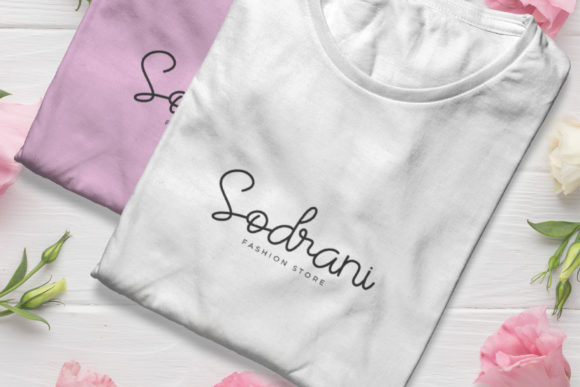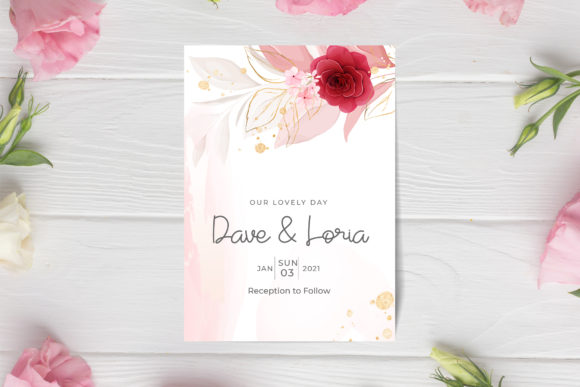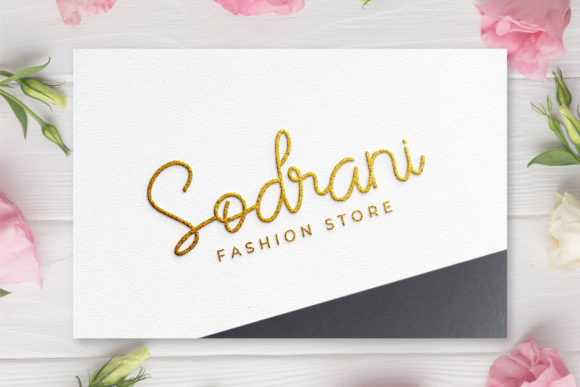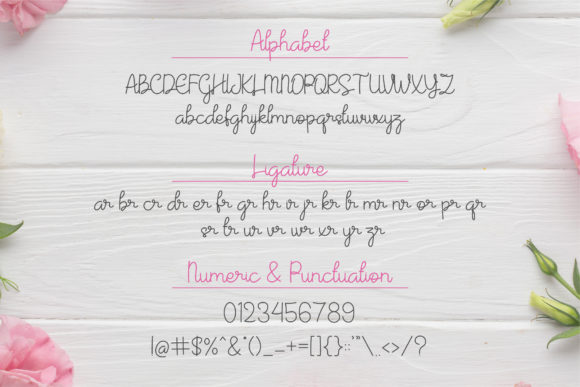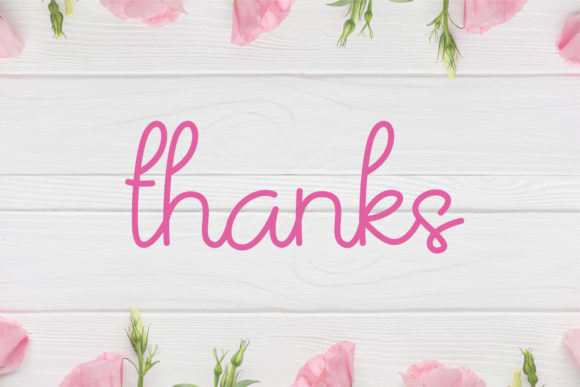
Introduction to Raloria Font
Do you remember the moment when you first started working on a creative project, and your imagination ran wild with possibilities? Maybe it was a DIY journal, a handmade card, or a customized sign for your home. Whatever it was, the excitement and joy of bringing your ideas to life is something we can all relate to. For designers, finding the perfect font can make all the difference in elevating their project from good to great.
That’s where the Raloria Font comes in – a stunning pairing of a brush pen and pencil that creates an endearing and authentic look. This gorgeous handwritten font is a game-changer for any creative project, offering a high-quality design resource that’s perfect for designers who want to add a personal touch to their work.
Key Features of Raloria Font
- High-quality, unique design ideal for creative projects, with a focus on elegance and sophistication.
- Unique characteristics include a subtle texture and intricate details, adding depth and visual interest to any design.
Honest Review: Raloria Font
As a designer, I’m always on the lookout for high quality design resources to enhance my creative projects. I recently came across the Raloria Font, and I’m excited to share my thoughts on this free download.
One of the things that stood out to me about the Raloria Font is its sleek and modern design. It’s perfect for any project that requires a touch of sophistication and elegance. ✨ The font is highly customizable, and I appreciated the transparent background option, which made it easy to layer over different backgrounds.
- Perfect for modern and creative projects
However, I did encounter a few limitations with the Raloria Font. ⚠️ The font can be a bit difficult to read in smaller sizes, and I found that it didn’t work well with bold text. Additionally, the font files could be more comprehensive, with more variations and weights.
Overall, I’m impressed with the Raloria Font, and I think it’s a great addition to any designer’s toolkit. While it may have a few limitations, its high quality and creative potential make it a valuable resource for any design project.
Tips for Getting the Most Out of Raloria Font
For a high-quality design project, use the Raloria Font in conjunction with a transparent background to create a unique and creative look. You can also experiment with different font sizes and colors to add visual interest to your design.